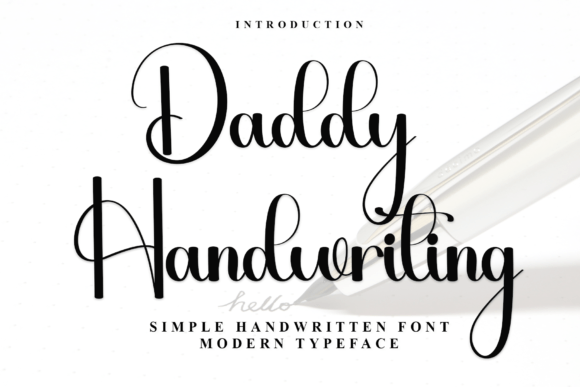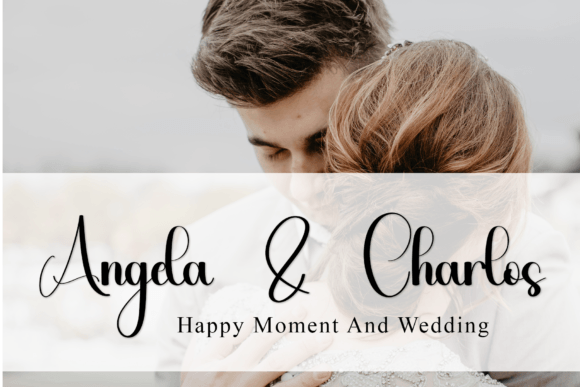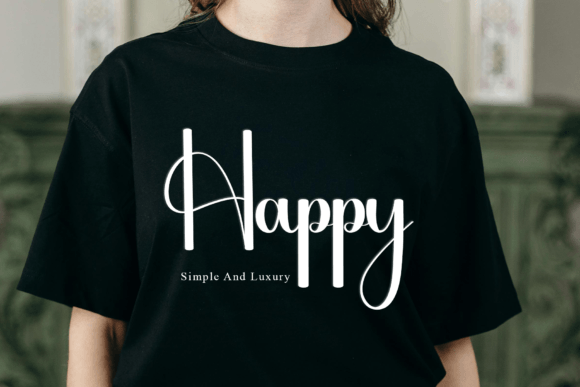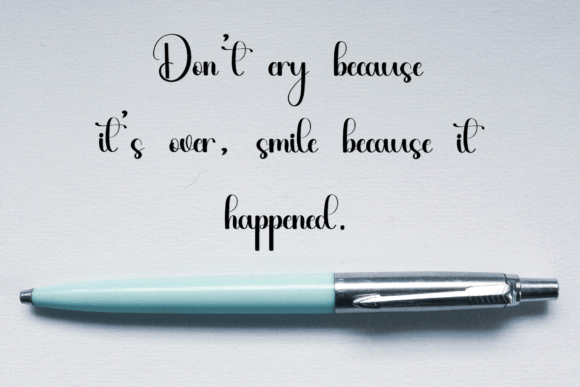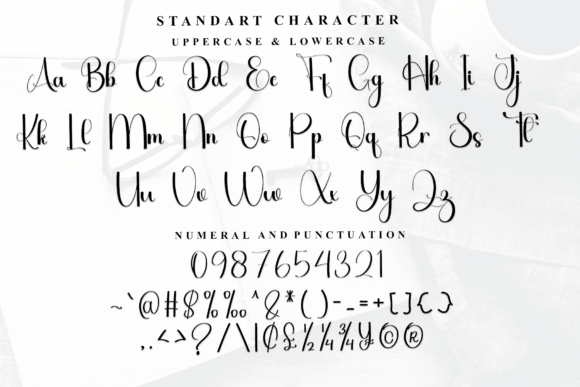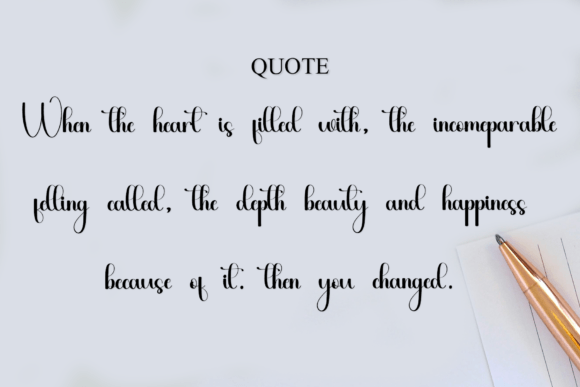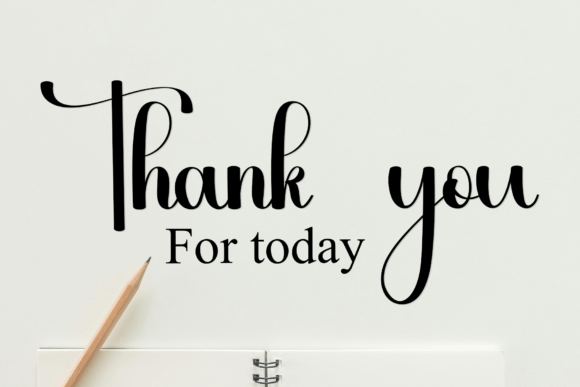
Deck the Halls with Typography: The Magic of Daddy Handwriting Font
As the snowflakes start to fall and the fireplace crackles to life, many of us find ourselves in the midst of holiday chaos – scrambling to find the perfect gift, bake the perfect cookies, and send out the perfect holiday cards. But amidst all the hustle and bustle, there’s one thing that can make your holiday season truly shine: the perfect typography. And that’s exactly where the Daddy Handwriting Font comes in – a festive and merry typeface that captures the spirit of the holiday season.
This charming font is the perfect addition to any holiday design project, from greeting cards to gift tags. With its whimsical flair and decorative elements, it adds a touch of enchantment to your words, making it a valuable tool for designers looking to bring a little extra magic to their creations. By incorporating the Daddy Handwriting Font into your holiday designs, you’ll be sure to make a lasting impression on your loved ones and leave a lasting memory of the season.
Daddy Handwriting Font Key Features
- Unique Handwriting Style: This font is designed to mimic the style of a father’s handwriting, making it perfect for creating a personal and nostalgic feel in your designs.
- Character Set: The font includes a comprehensive set of characters, including uppercase and lowercase letters, numbers, punctuation marks, and special characters.
- Language Support: Daddy Handwriting Font supports a wide range of languages, including English, Spanish, French, German, Italian, and many more.
Daddy Handwriting Font Review
Overall, I’m impressed with the unique charm of the Daddy Handwriting Font. It has a warm, inviting quality that works well for personal projects or children’s materials ✨. The font’s irregularities and variations in line width give it a handmade feel that’s perfect for adding a touch of personality to text.
The font includes a wide range of characters, including accented letters and punctuation marks ✨. This makes it a good choice for projects that require a lot of text, such as children’s books or educational materials.
- Unique, handmade feel ✨
- Wide range of characters, including accented letters and punctuation marks ✨
- Perfect for personal projects or children’s materials
- May not be suitable for formal or professional projects due to its informal, handwritten feel ⚠️
- Can be difficult to read at small font sizes due to the irregularities in line width and character spacing ⚠️
Overall, I think the Daddy Handwriting Font is a great choice for projects that require a personal, homemade feel. While it may not be suitable for every project, it’s a unique and charming font that’s sure to add character to any text.
Tips for Getting the Most Out of Daddy Handwriting Font
To get the most out of Daddy Handwriting Font, try the following:
- Use it for titles and headings to add a touch of personality to your design.
- Pair it with other fonts to create a unique and playful look.
The Daddy Handwriting Font is perfect for:
- Children’s party